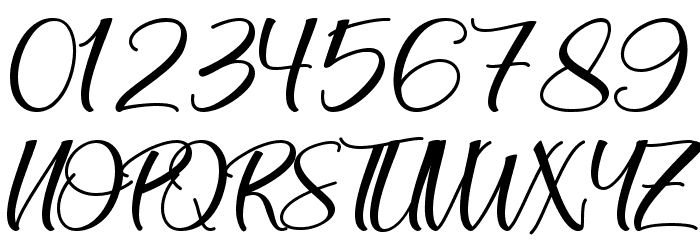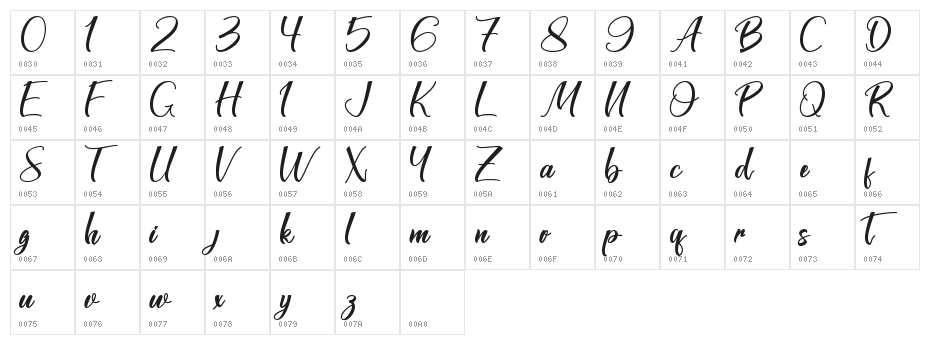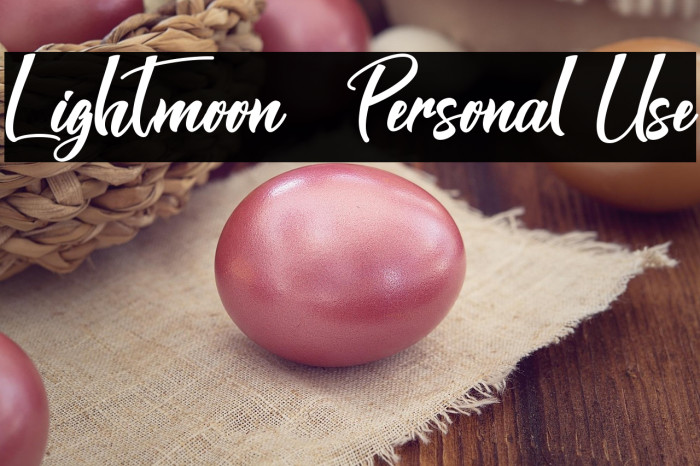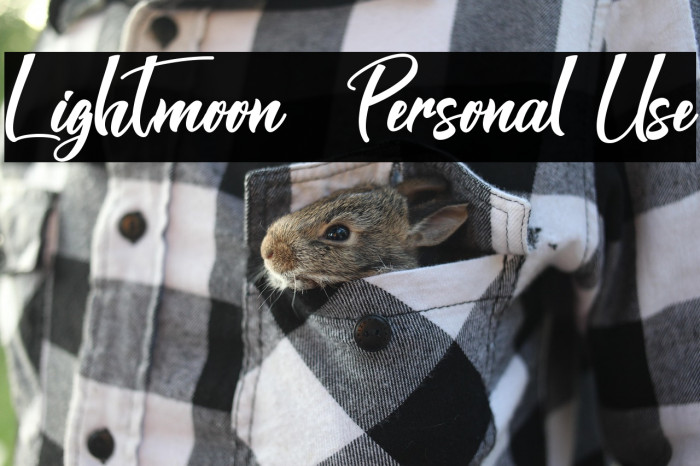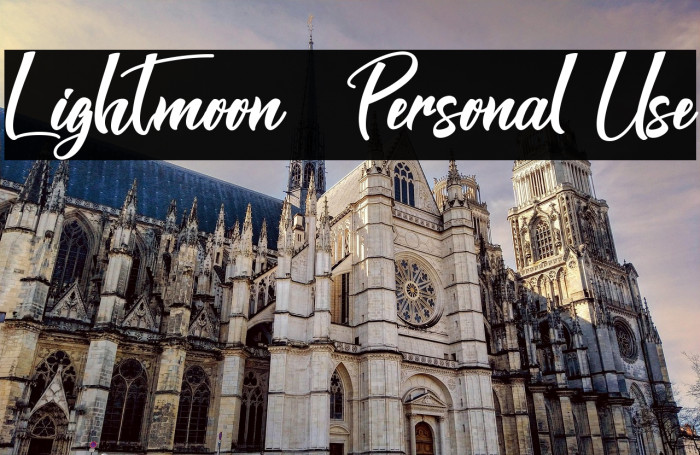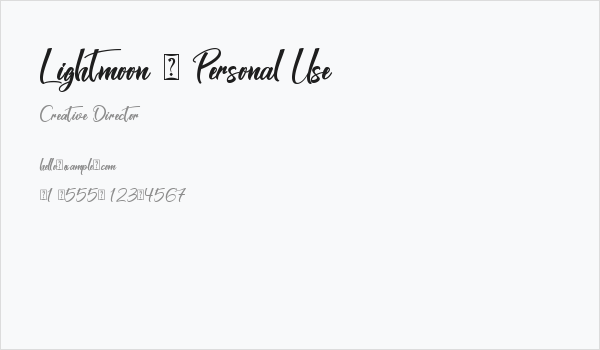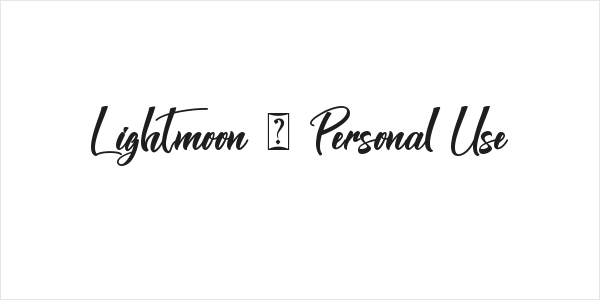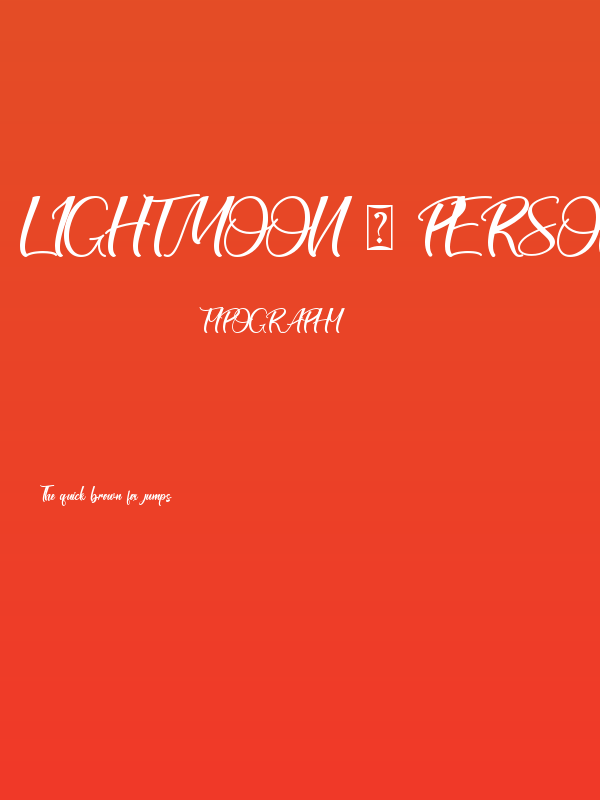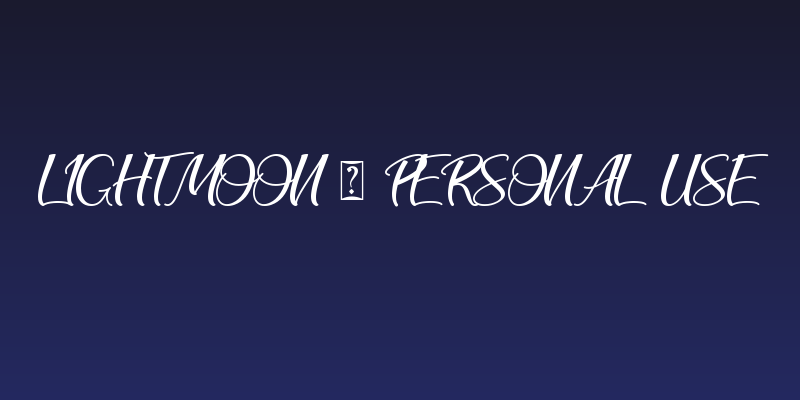
Lightmoon - Personal Use Font
Lightmoon - Personal Use Description
This font features an elegant and flowing script style, characterized by its smooth, cursive lines and artistic flair. The uppercase letters are bold and sweeping, with a dramatic presence that captures attention. The lowercase letters maintain a consistent flow, with some letters connecting seamlessly to create a harmonious look. The numerals are distinct yet maintain the same fluid style, ensuring readability while adding a touch of sophistication. The special characters are designed to complement the overall aesthetic, making this font suitable for creative and decorative applications.
| Proposed Projects | Ideal for wedding invitations, branding, greeting cards, and other creative projects requiring a touch of elegance. |